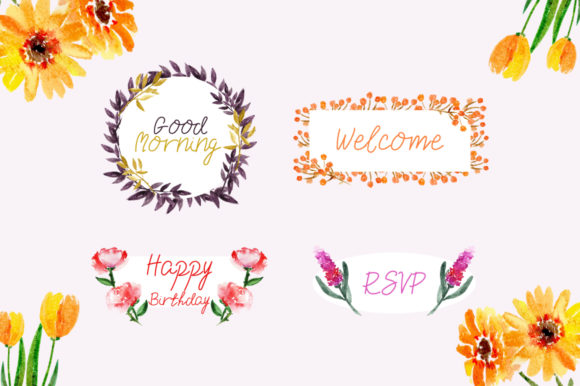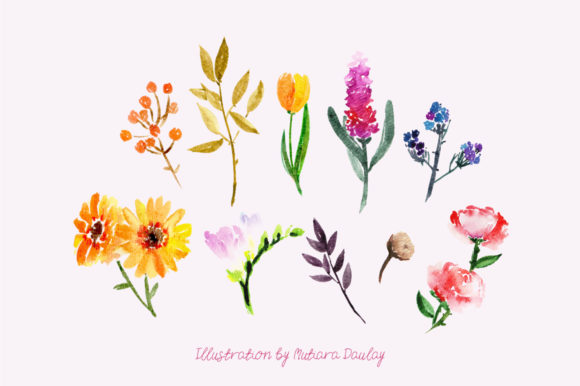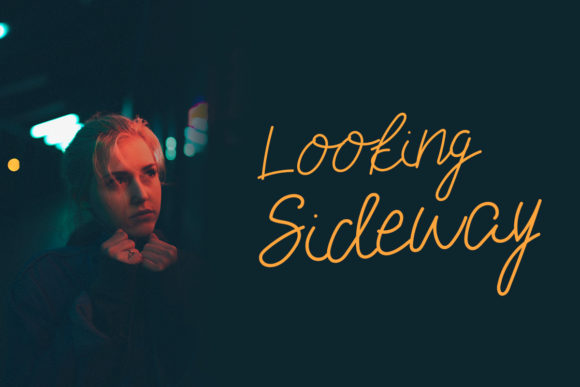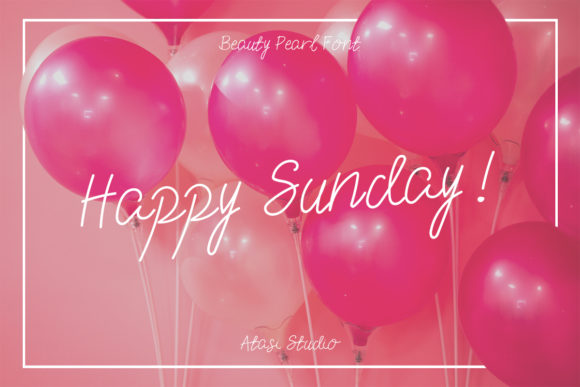
Introducing the Beauty Pearl Font: Elevate Your Designs with Luxury and Elegance
In the world of digital design, fonts play a crucial role in conveying the tone and aesthetic of a brand or project. For designers and crafters seeking to add a touch of luxury and sophistication to their work, the Beauty Pearl Font is an exceptional choice. This modern signature font is specifically designed to leave a lasting impression of elegance and refinement, making it perfect for high-end branding, packaging, and marketing materials.
The Beauty Pearl Font: A Modern Signature Font with a Luxurious Impression
The Beauty Pearl Font is a stunning example of modern typography, boasting clean lines, flowing curves, and a sense of opulence that is sure to captivate audiences. Its unique design combines classic elements with a contemporary twist, resulting in a font that is both timeless and trendy. Whether you’re working on a logo, invitation, or advertisement, this font is guaranteed to add a level of sophistication and glamour to your design.
Beyond the Font: Beautiful Watercolor Illustrations Included
But that’s not all – the Beauty Pearl Font package comes with a special bonus that sets it apart from other fonts on the market. In addition to the font itself, you’ll also receive a set of beautiful watercolor illustrations that can be used to add an extra layer of depth and visual interest to your designs. These illustrations are perfect for creating unique textures, backgrounds, and design elements that will make your work stand out from the crowd.
The Beauty Pearl Font is an ideal choice for designers and crafters working on a wide range of projects, including:
- Branding and logos: Create a lasting impression with a custom logo that exudes luxury and sophistication.
- Invitations and stationery: Add a touch of elegance to your wedding invitations, business cards, and letterhead.
- Packaging and product design: Stand out on store shelves with eye-catching packaging that showcases your brand’s personality.
- Marketing and advertising: Create stunning ads and promotional materials that capture the attention of your target audience.
Key Features of the Beauty Pearl Font
Here are just a few of the key features that make the Beauty Pearl Font a must-have for designers and crafters:
- Modern signature font: A unique and stylish font that is perfect for making a statement.
- Luxurious impression: Convey a sense of high-end quality and sophistication with this elegant font.
- Beautiful watercolor illustrations: Add a touch of whimsy and creativity to your designs with these stunning illustrations.
In conclusion, the Beauty Pearl Font is a game-changer for designers and crafters seeking to elevate their designs with a touch of luxury and elegance. With its modern signature font and beautiful watercolor illustrations, this package has everything you need to create stunning visuals that leave a lasting impression. Whether you’re working on a branding project, packaging design, or marketing materials, the Beauty Pearl Font is the perfect choice for adding a level of sophistication and glamour to your work.